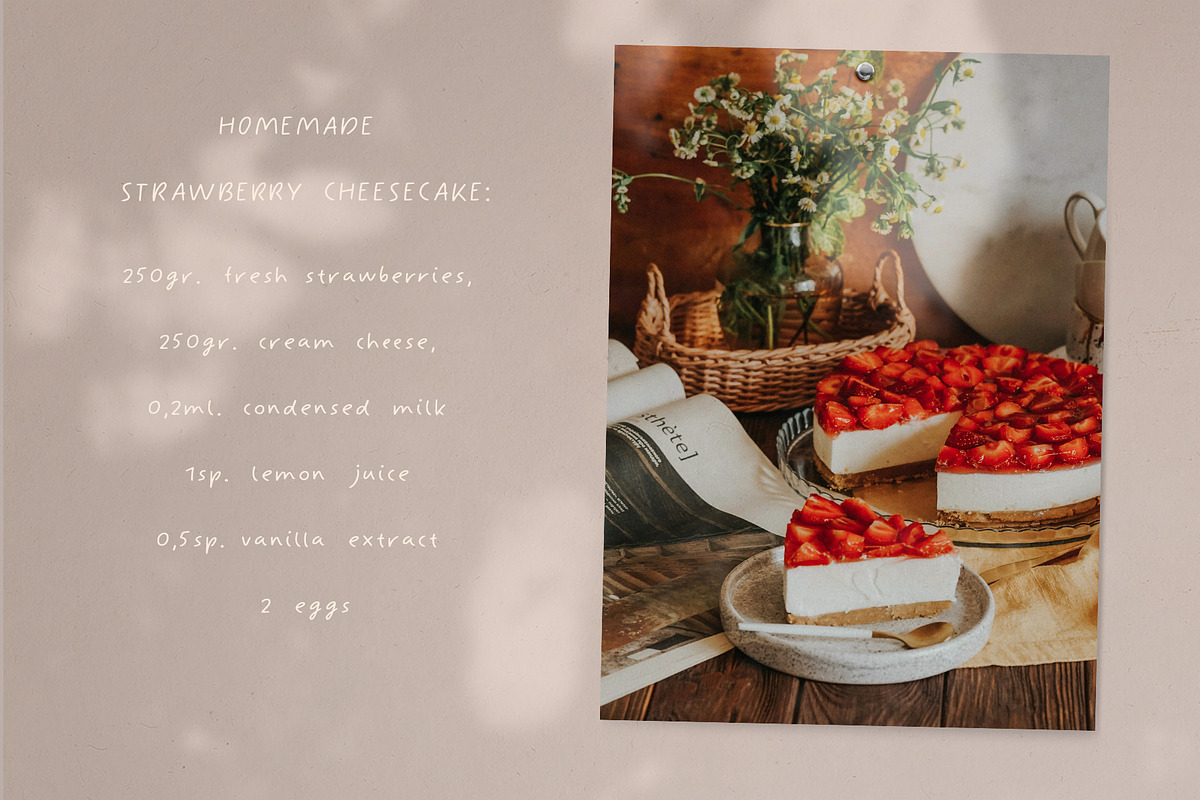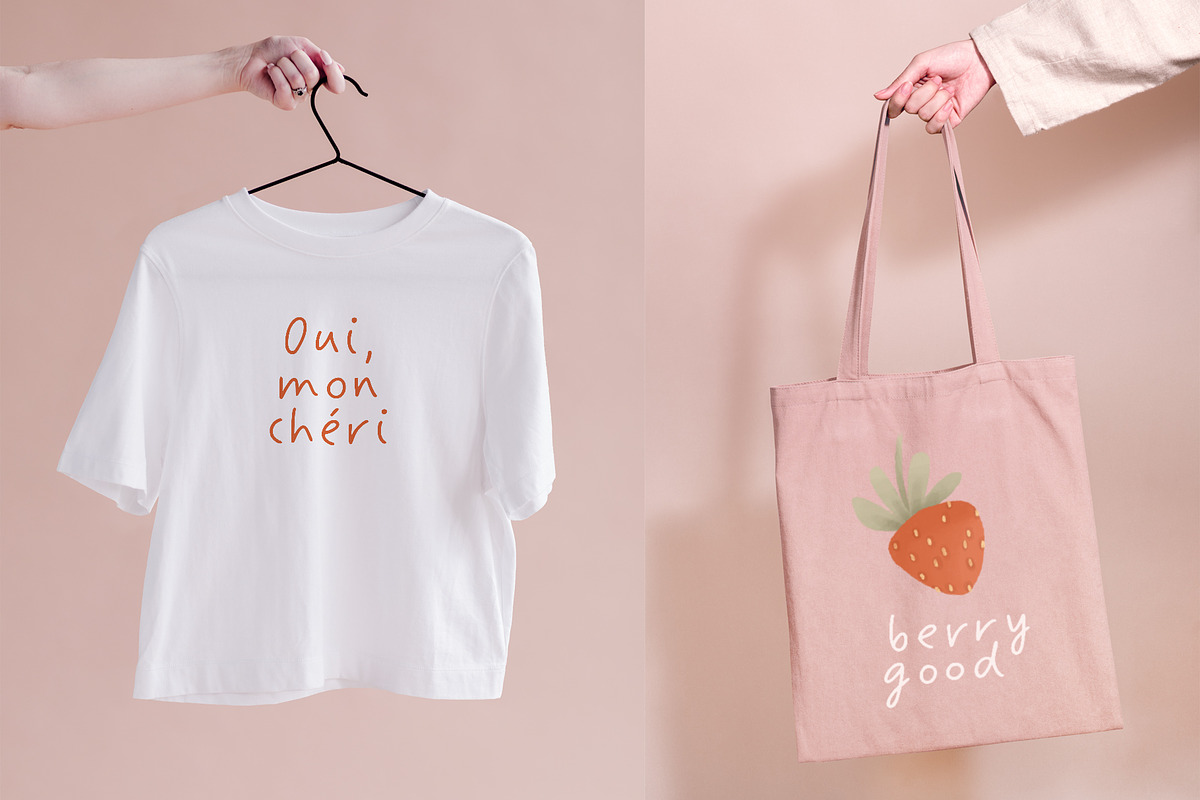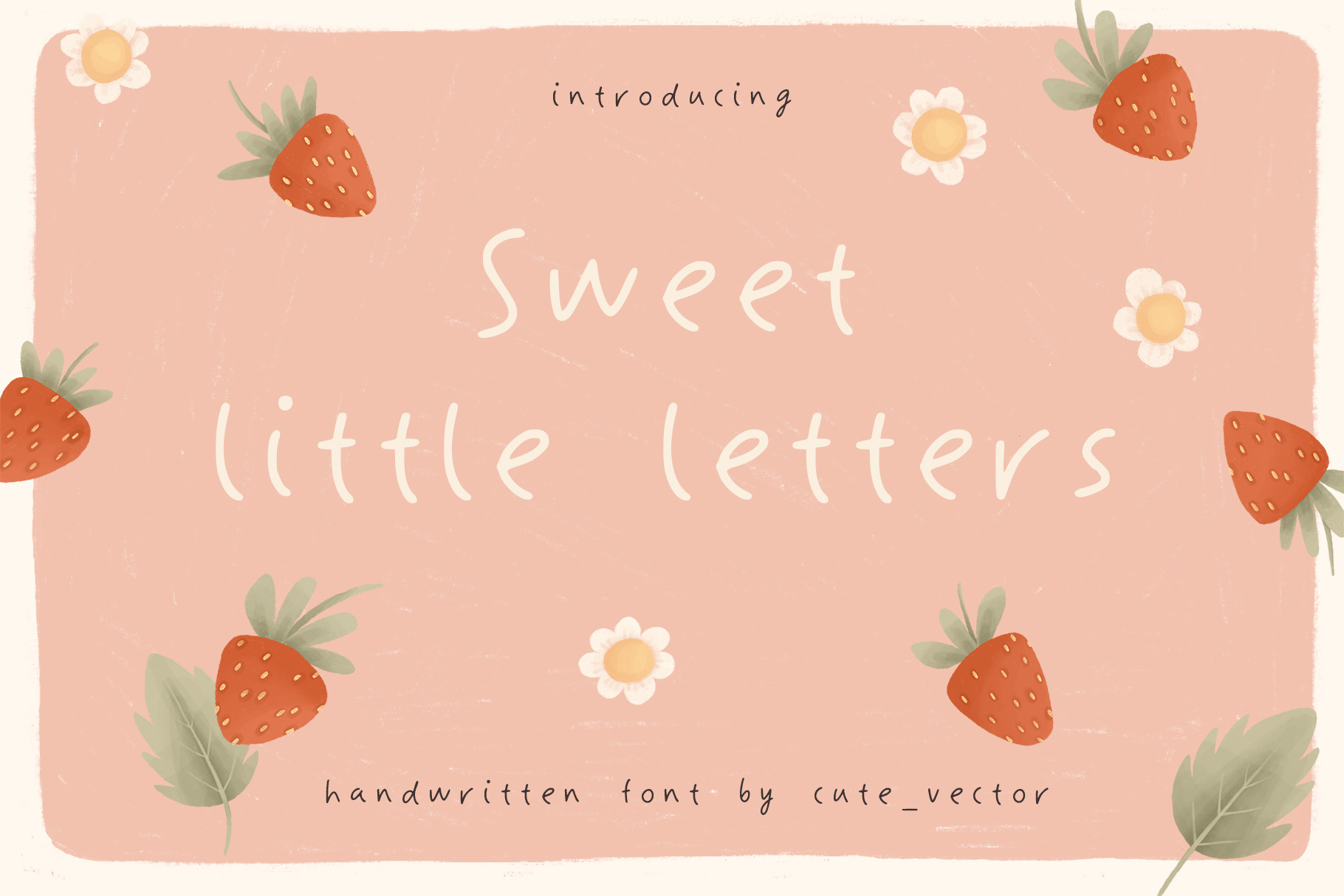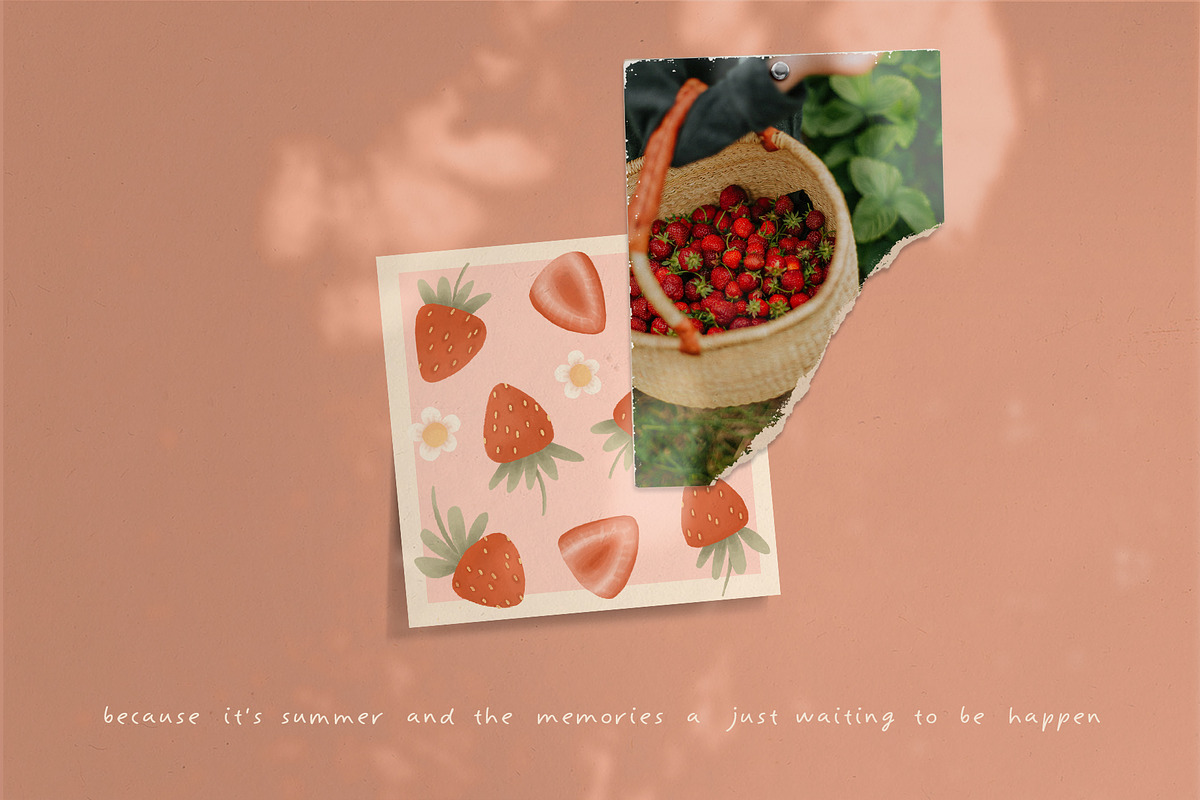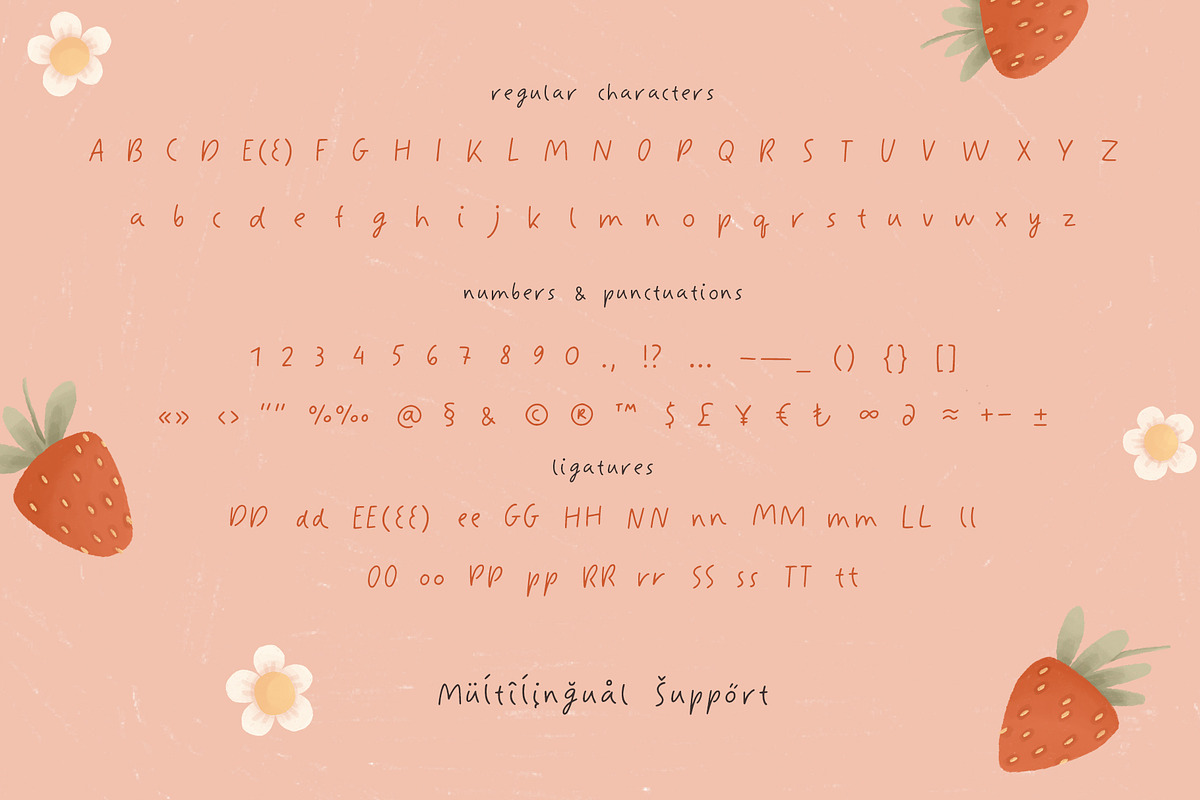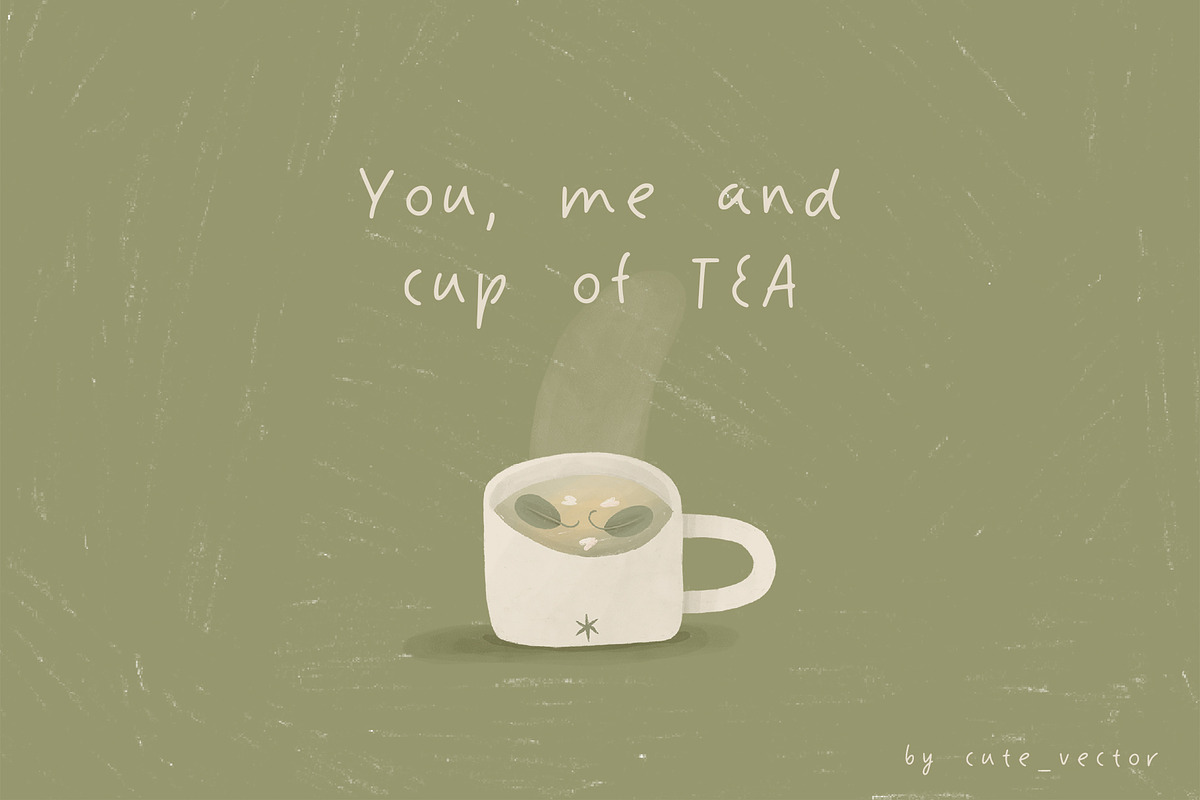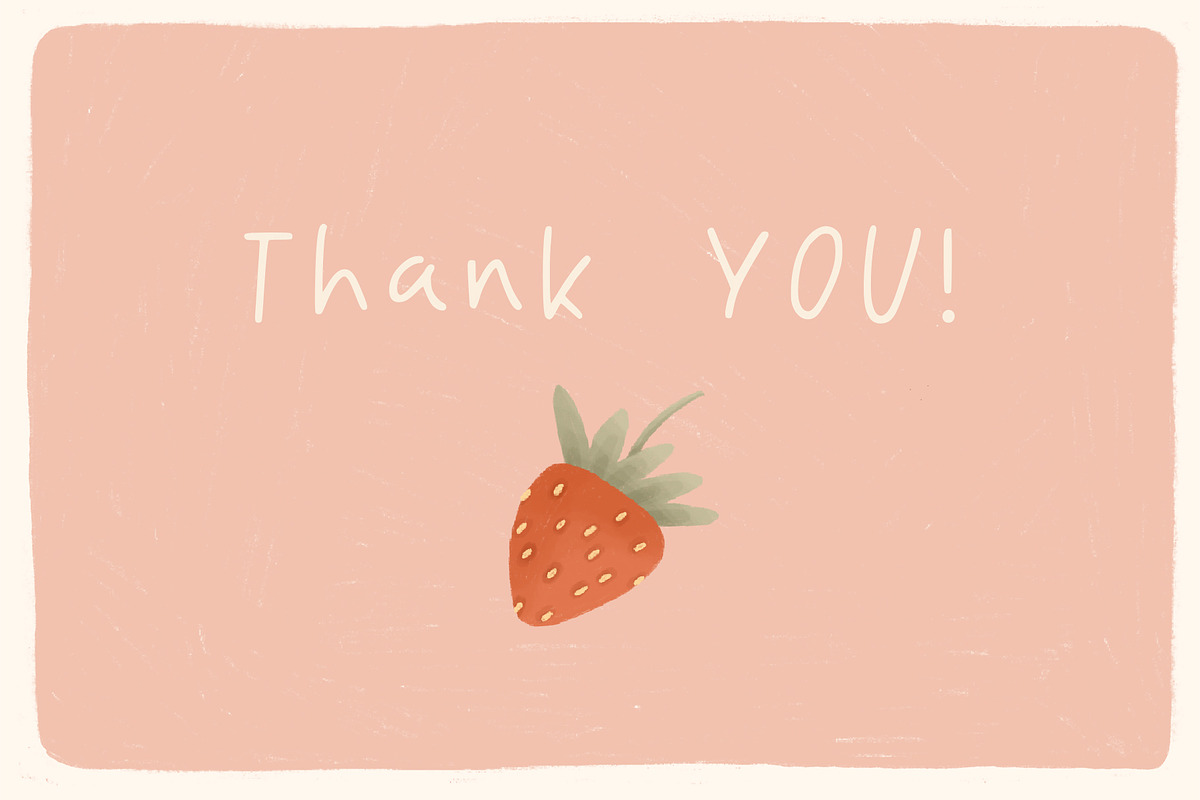
Sweet little letters - Summer font
Sweet little letters is a cute summer handwritten font. Perfect for logos, branding, packaging, apparel, cards, posters, stickers, quotes, social media posts and more! You will get: